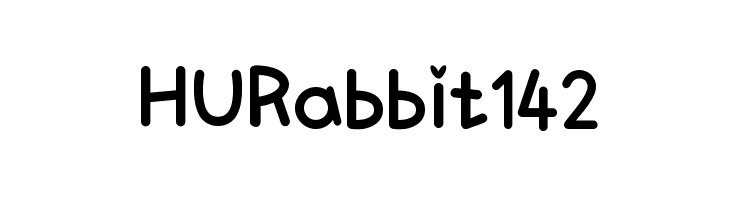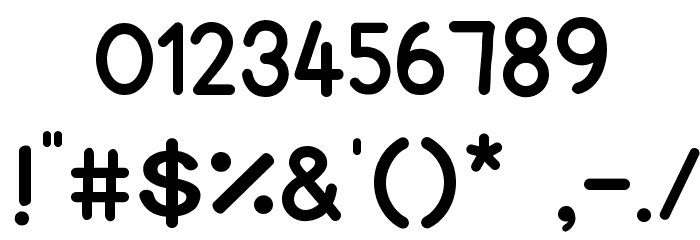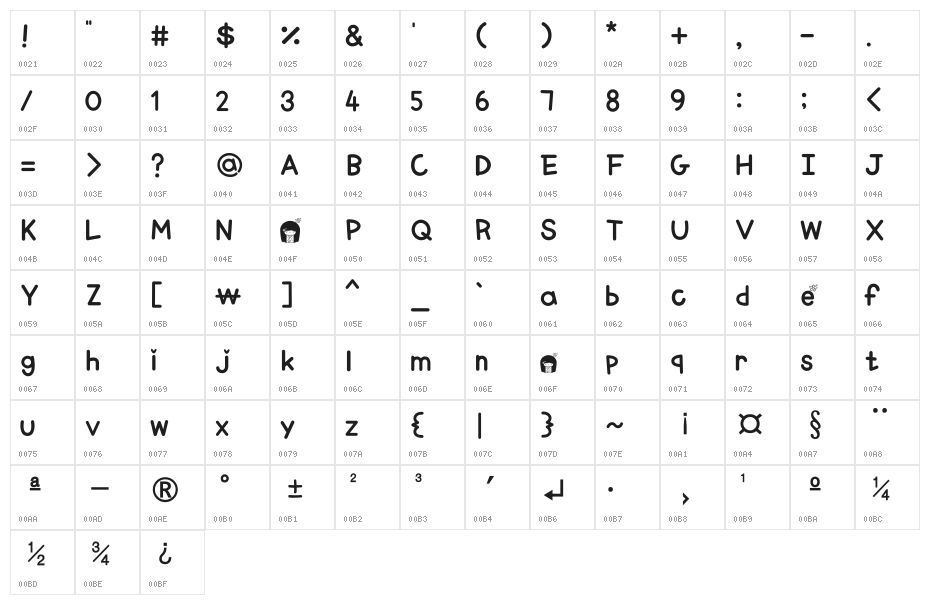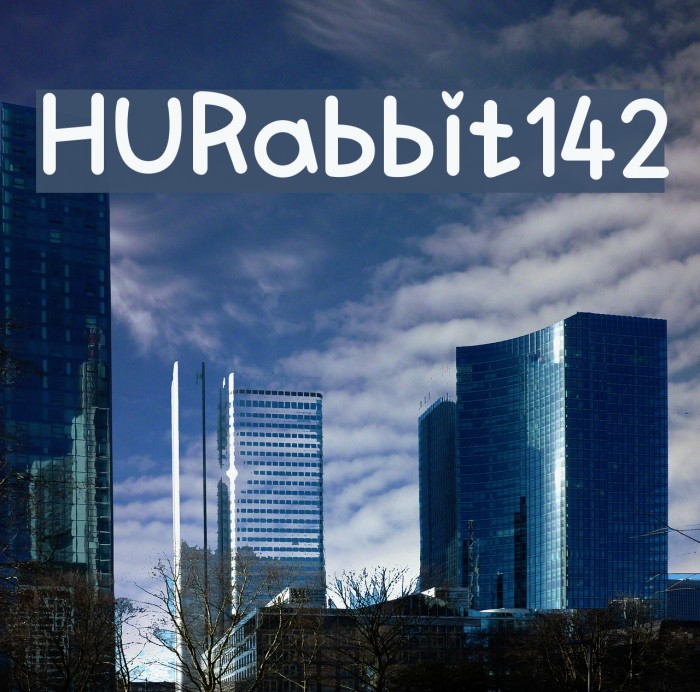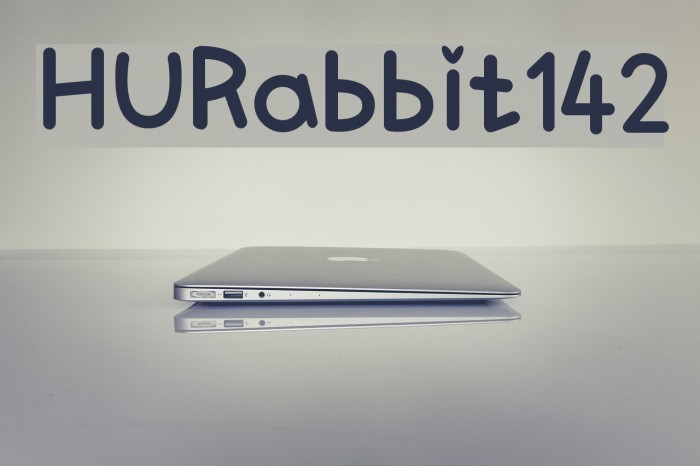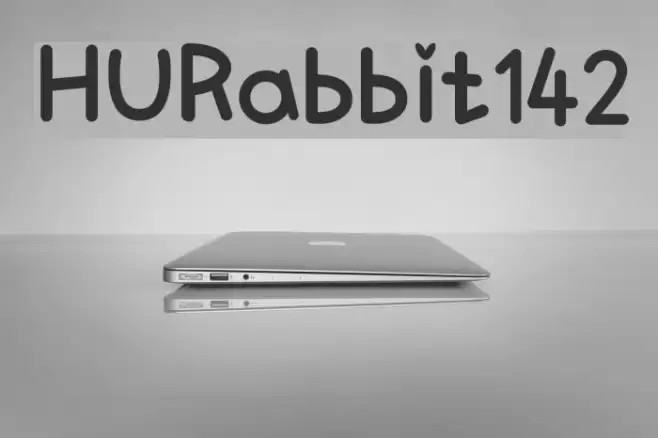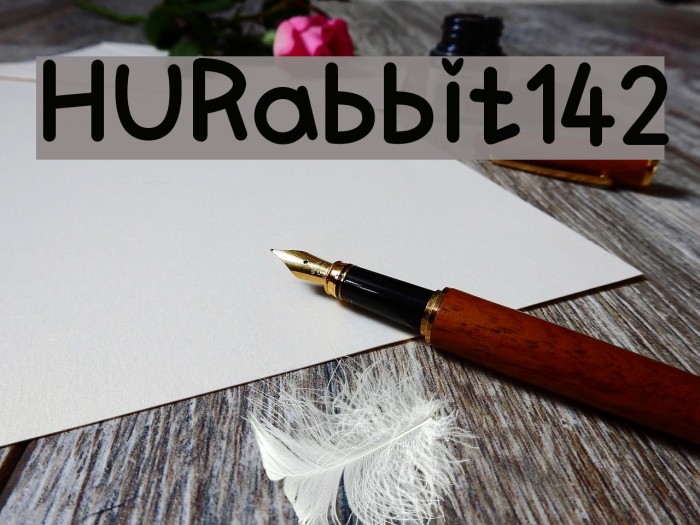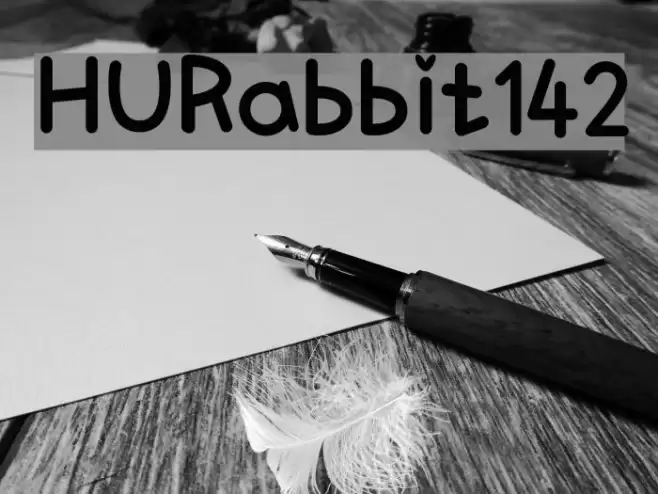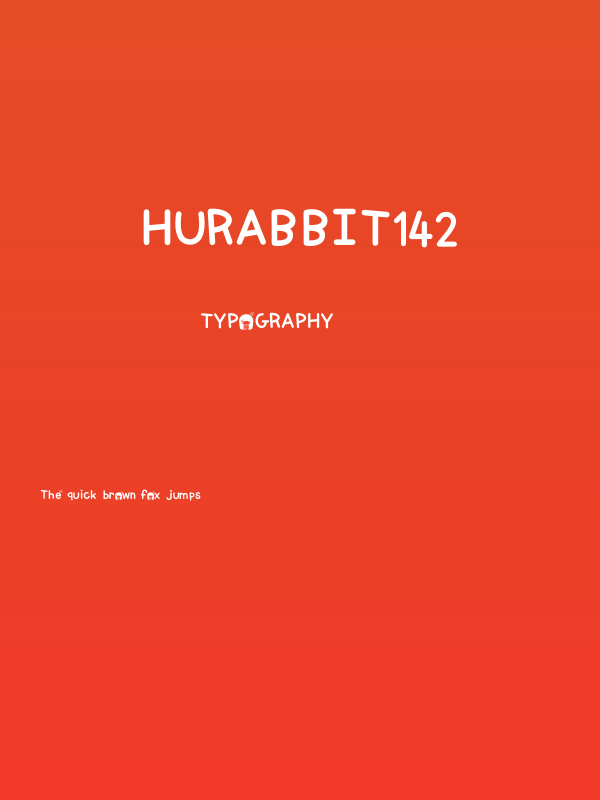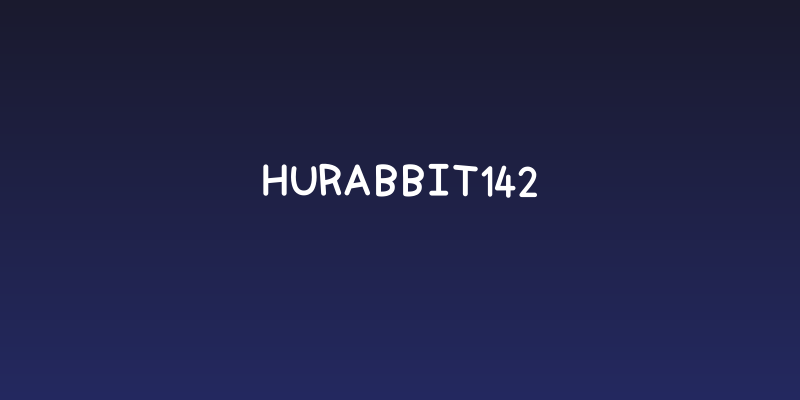
HURabbit142 Font
HURabbit142 Description
This playful and whimsical font features rounded, bold characters with a friendly and approachable style. The letters are evenly spaced and maintain a consistent thickness throughout, giving it a uniform appearance. The inclusion of small decorative elements, such as a character with a leaf or flower, adds a unique and charming touch to the design. The font is easy to read, making it suitable for a variety of uses where a lighthearted and fun aesthetic is desired. The numbers and special characters are designed to match the playful style of the alphabet, ensuring a cohesive look across all text elements.
| Overall Style | Whimsical |
| Proposed Projects | Ideal for children's books, playful branding, greeting cards, and educational materials. |